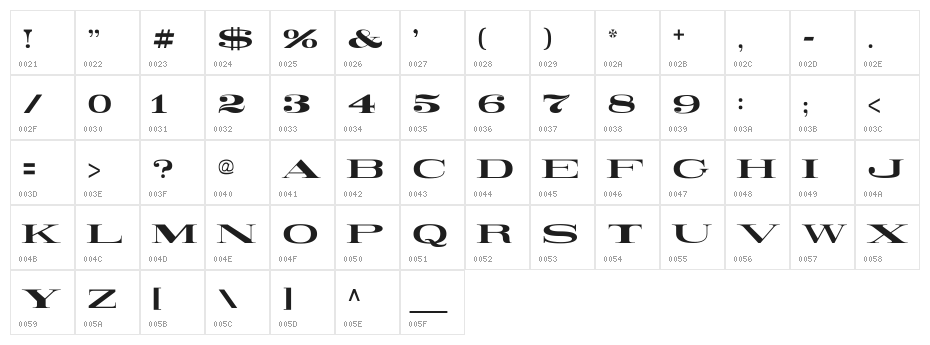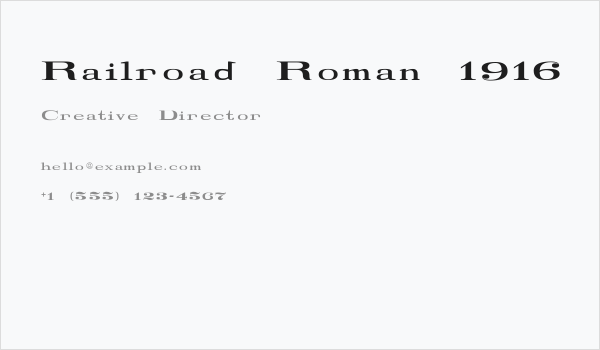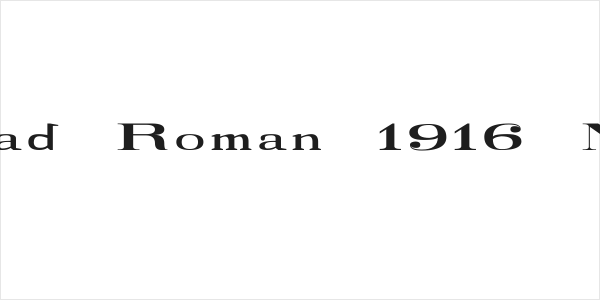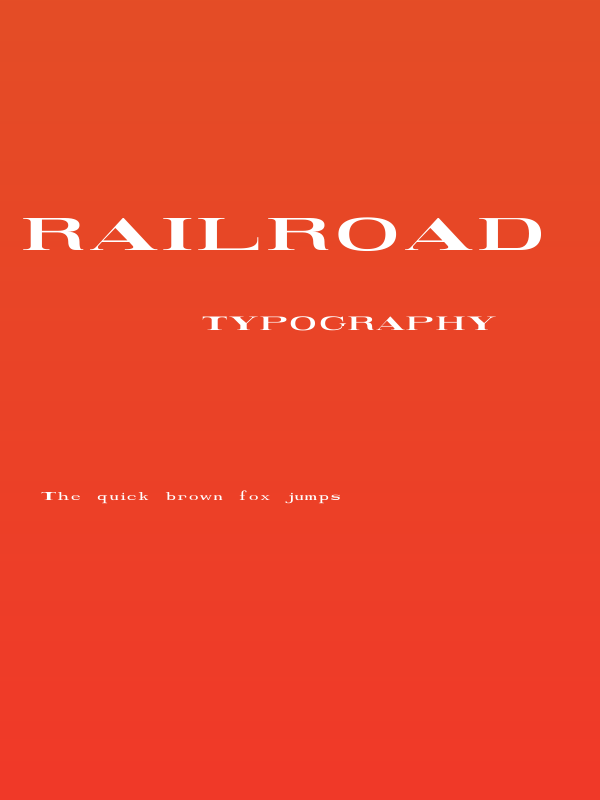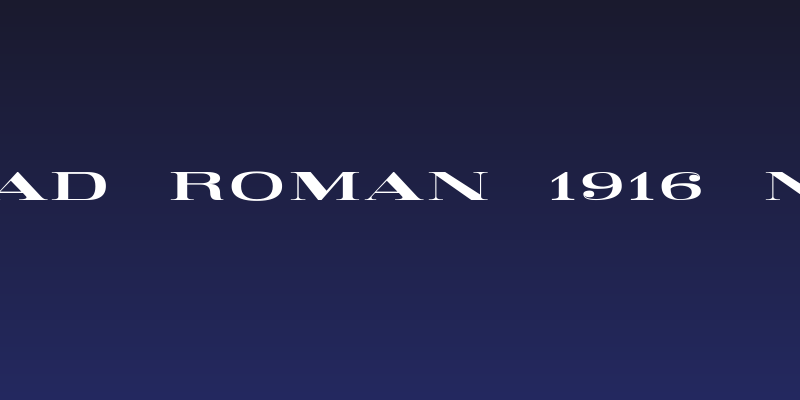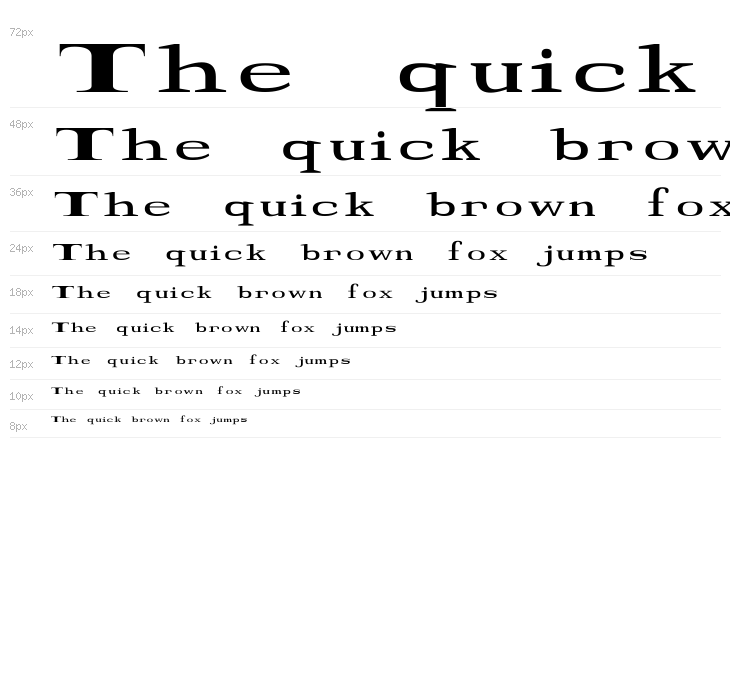
Railroad Roman 1916 Normal Font
Railroad Roman 1916 Normal Description
This font features a classic serif style with a distinct vintage appeal. The characters are elegantly crafted with sharp serifs and a balanced proportion, giving it a timeless and sophisticated look. The uppercase letters are bold and commanding, while the lowercase letters maintain a consistent flow with slightly rounded edges. Numbers are clear and legible, making them suitable for various applications. Special characters are designed with the same attention to detail, ensuring uniformity across the font. The overall design is reminiscent of early 20th-century typography, perfect for projects that require a touch of historical elegance.
Overall StyleVintage
Use CaseHeadlines, Logos, Editorial design
Proposed ProjectsIdeal for historical publications, vintage-themed branding, signage, and editorial design.